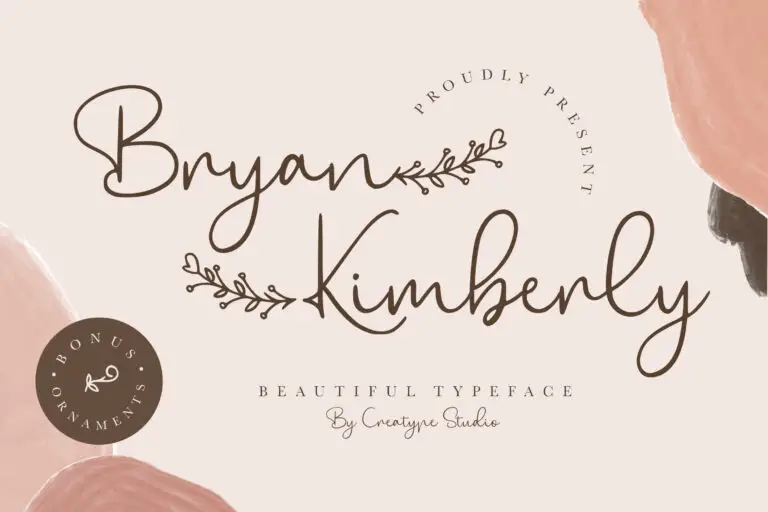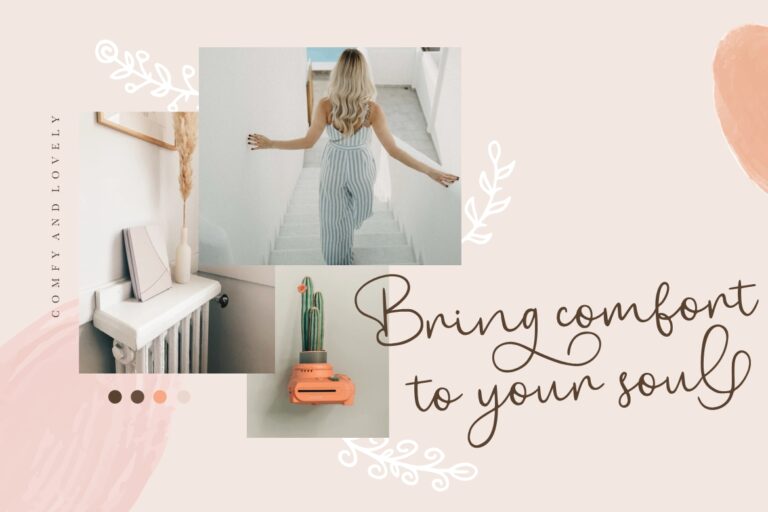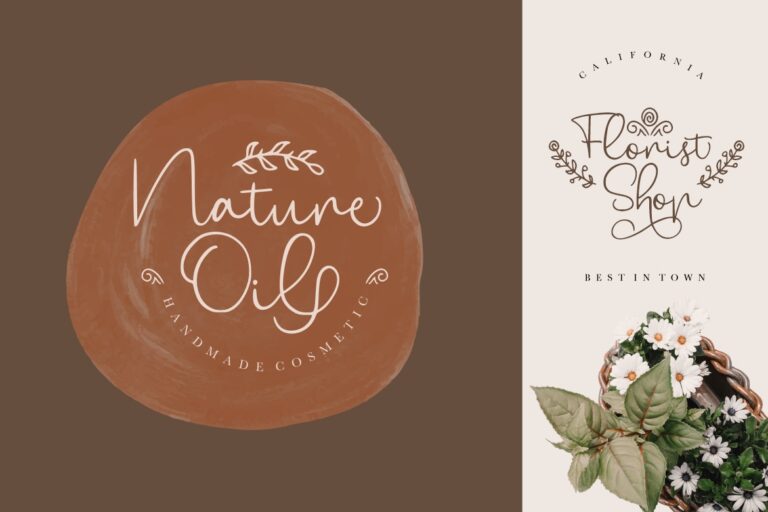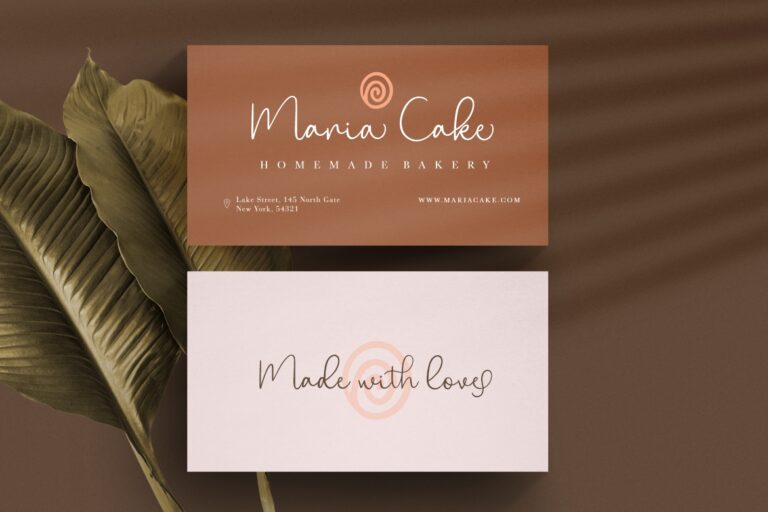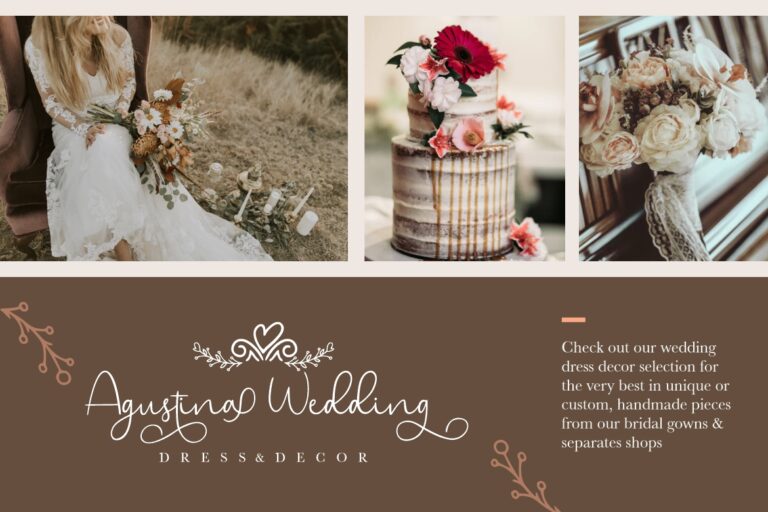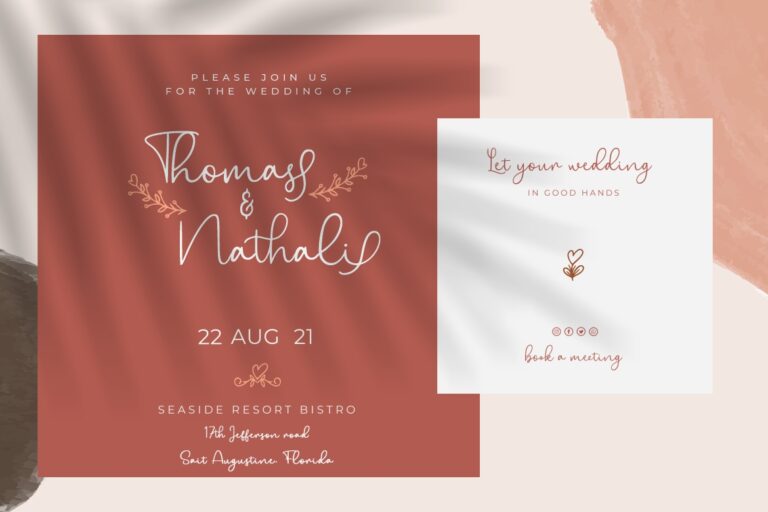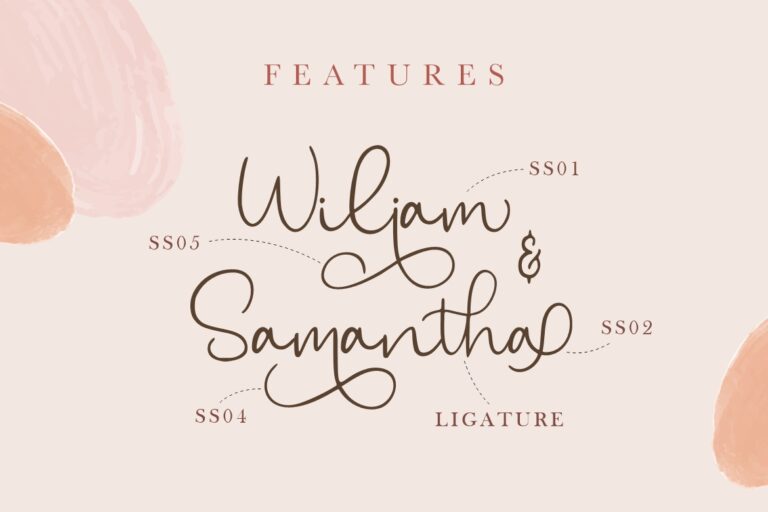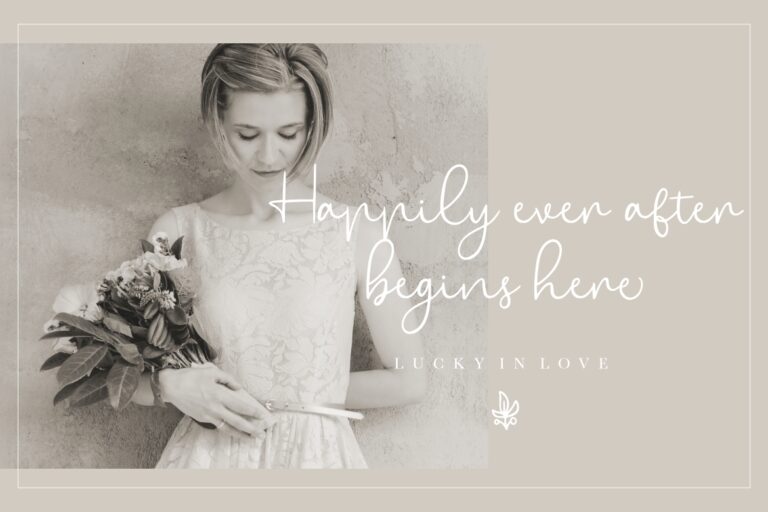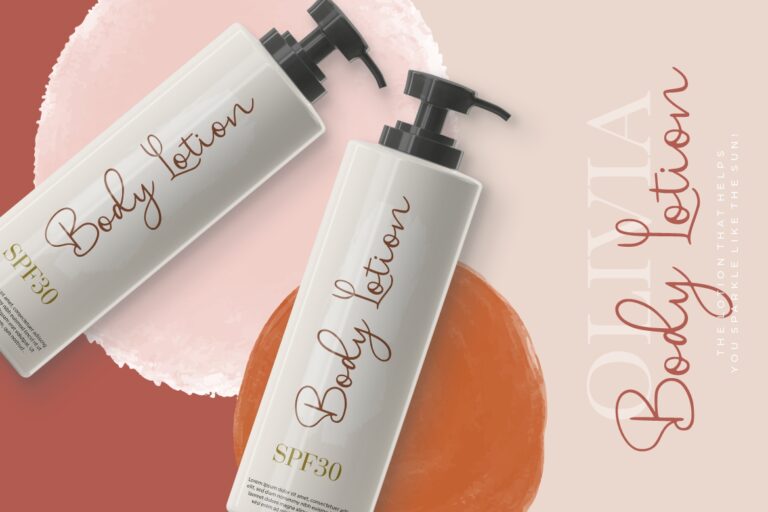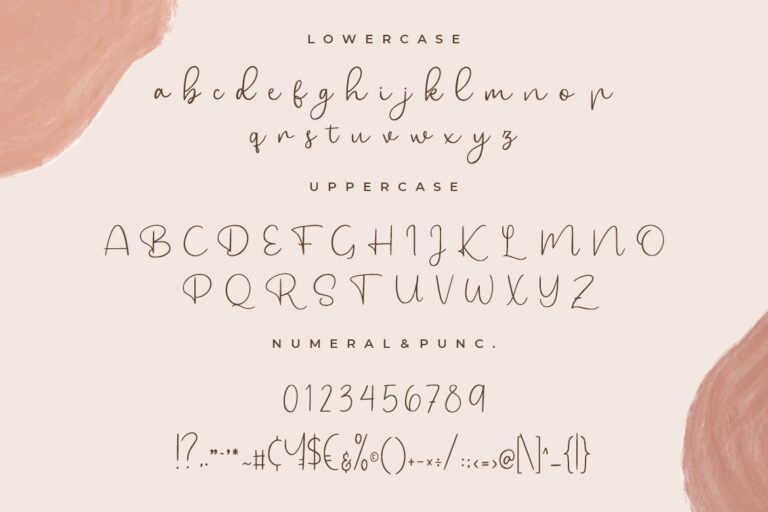
Bryan Kimberly Beautiful Typeface
Bryan Kimberly a beautiful signature font with natural line movement make classy and elegant.
Bryan Kimberly would perfect for photography, watermark, social media posts, advertisements, logos & branding, invitation, product designs, label, stationery, wedding designs, product packaging, special events or anything that need handwriting taste.
- Ligature, Alternate & Swashes